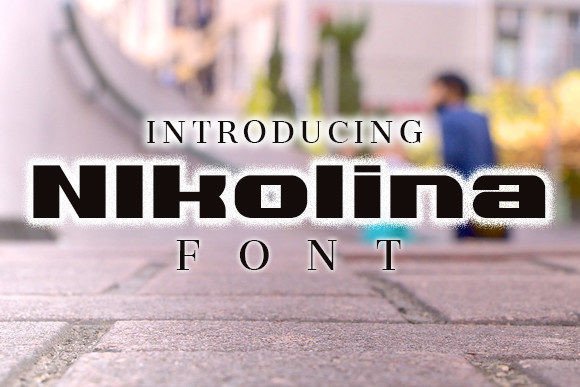
Unveiling Nikolina Font: A Symphony of Boldness and Elegance for Your Creative Expressions
Journey into a world of captivating typography with Nikolina Font, a display font that audaciously fuses boldness and sleekness. Designed to make an indelible mark, Nikolina is a masterpiece that exudes modernity and minimalism. Its sharp, straight characters dance across your designs with a clean and simple allure, accentuated by a striking contrast between thick and thin lines. This tantalizing play of strokes adds depth and dimension, making your words leap off the page with an almost tangible presence.
Step into the spotlight with Nikolina Font, the perfect companion for crafting impactful headlines that demand attention. Whether you're creating posters for electrifying concerts or designing logos that exude confidence, Nikolina is your trusted ally. Its bold and striking nature ensures that your messages resonate with your audience, leaving an unforgettable impression that lingers in their minds.
With Nikolina Font at your fingertips, branding takes on a whole new meaning. Create a visual identity that reflects your brand's personality with a logo that speaks volumes. Nikolina's distinct character adds a touch of sophistication and confidence that sets you apart from the crowd. Let your brand shine with a unique and memorable logo that captures the essence of your business.
Nikolina Font is more than just a collection of characters; it's an invitation to unleash your creativity and make a statement. Its versatility extends beyond concert posters and logos, seamlessly adapting to a myriad of design projects. Unleash your imagination and explore the boundless possibilities of this remarkable font.
Don't settle for ordinary fonts that blend into the background. Embrace Nikolina Font, a display font that stands out from the crowd. Its bold and sleek design is a testament to your discerning taste and appreciation for exceptional typography. Make a bold statement with Nikolina Font, and let your designs radiate confidence and sophistication.